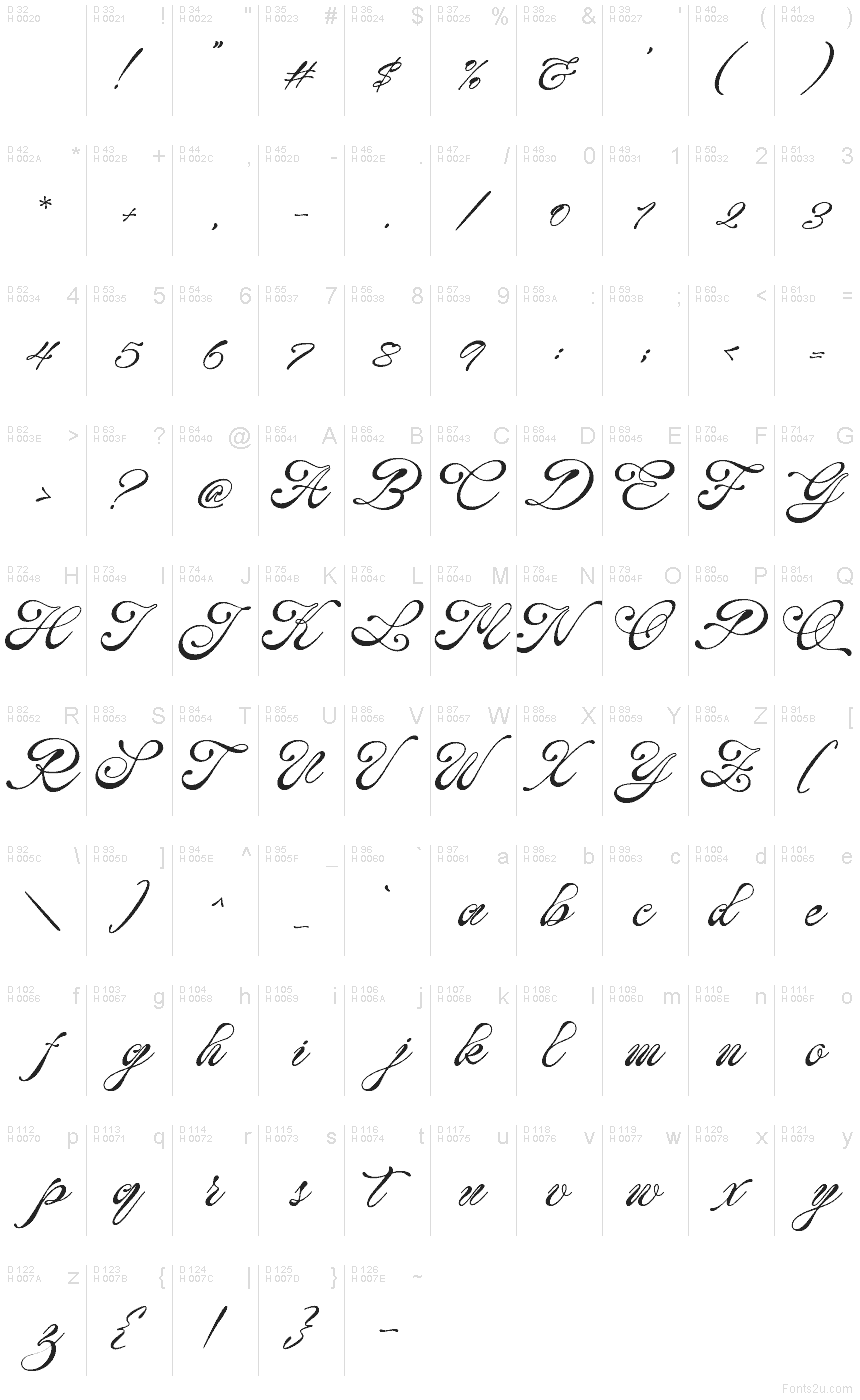
Holy Mary Demo
Holy Mary font by Redy Studio is a free elegant calligraphy script font. It glides with a classic copperplate rhythm—inky thick-downstrokes taper into hairline lifts, with generous loops and polished swashes that feel hand-brushed yet controlled. The letters connect tightly and lean with a graceful tilt, giving names and short phrases a ceremonial glow without slipping into fussiness.
Using Holy Mary, your wedding invitations, save‑the‑dates, boutique branding, beauty packaging, event signage, and social media quotes will read as refined and romantic. This free font shines on short headlines and signatures; set it large with a touch of letterspacing. For balance, pair it with a light serif or a clean geometric sans.